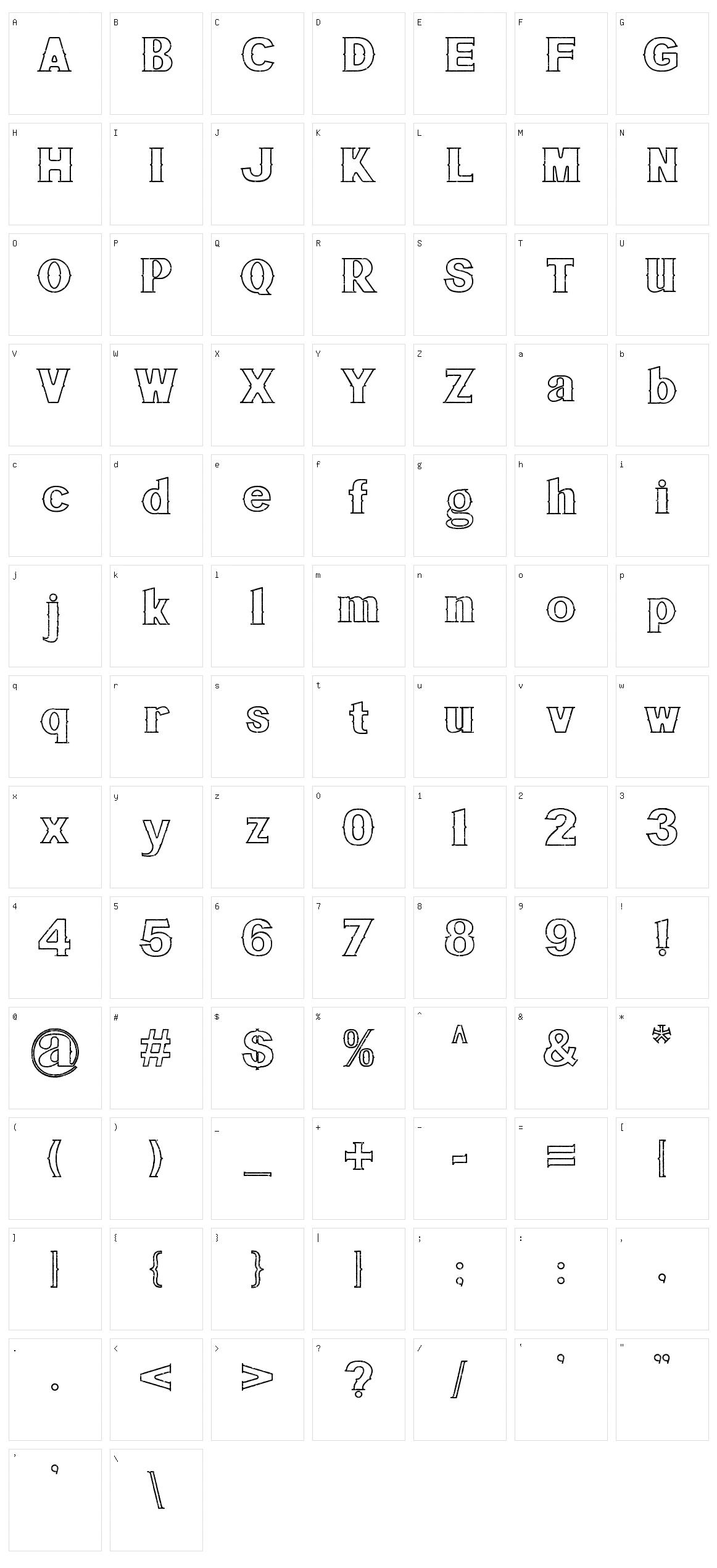
The free font Bluegrass is carefully designed by Peter Olexa, showcasing a thoughtful balance of creativity and usability and falls under the Western font style. When you download the ZIP file, it contains only 704.8 KB of font files, making it lightweight and quick to download. Please review the license details below to understand permitted usage and distribution rights. If license information is not available, we recommend using this font for personal projects only or contacting the author directly for commercial usage permissions.
Bluegrass Outline - Free font